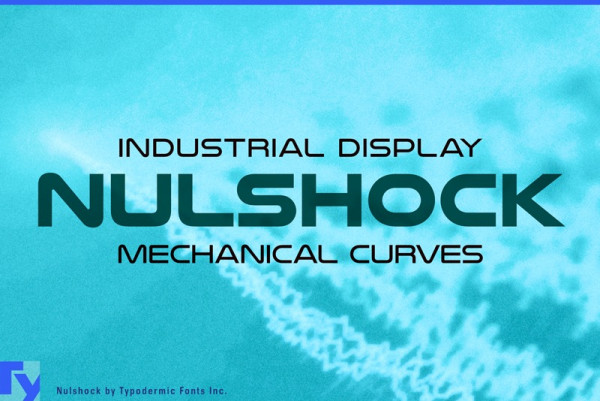
Nulshock Font is a sans serif font with a futuristic look inspired by computers and technology because of Its smooth lines with mechanic curves.
| Designer Name: | Typodermic Fonts |
| Classification: | Sans Serif Fonts |